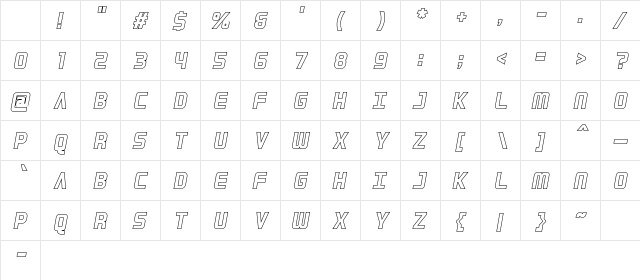
Complete Geistack Italic Hollow glyph index. Displaying only characters natively supported by Geistack Italic Hollow font.
Geistack is a composed and adaptable typeface that performs quietly and consistently across a wide range of design contexts. The slanted form adds forward momentum and visual energy.
Pro Tip: Use Geistack for emphasis, pull quotes, and subheadings where its slanted energy can add rhythm to the layout.